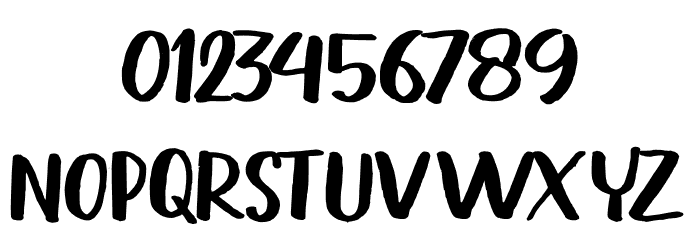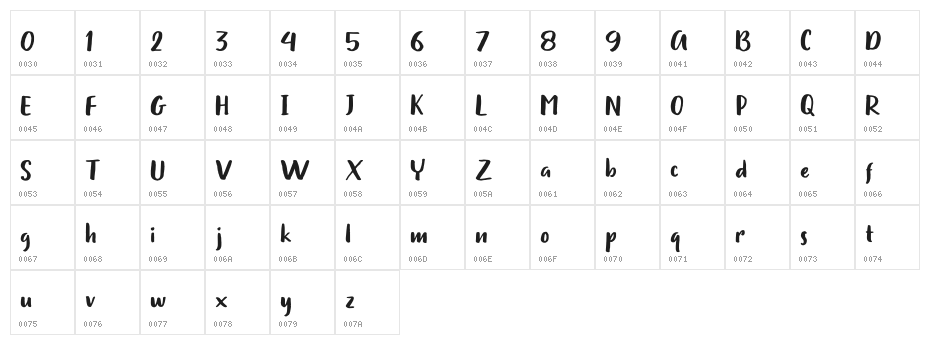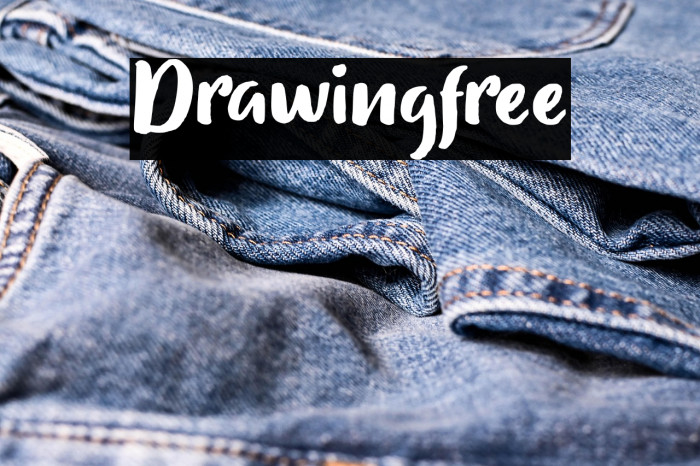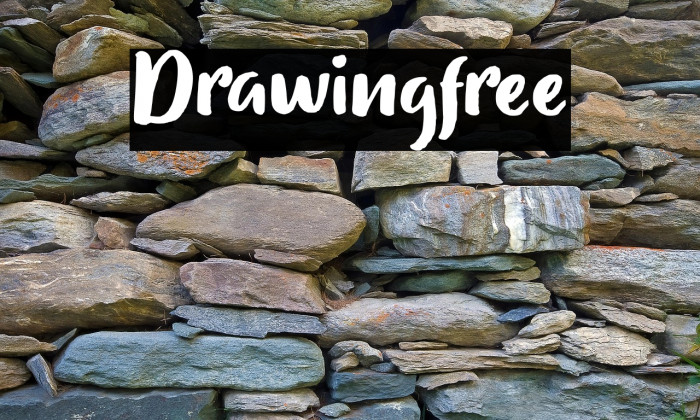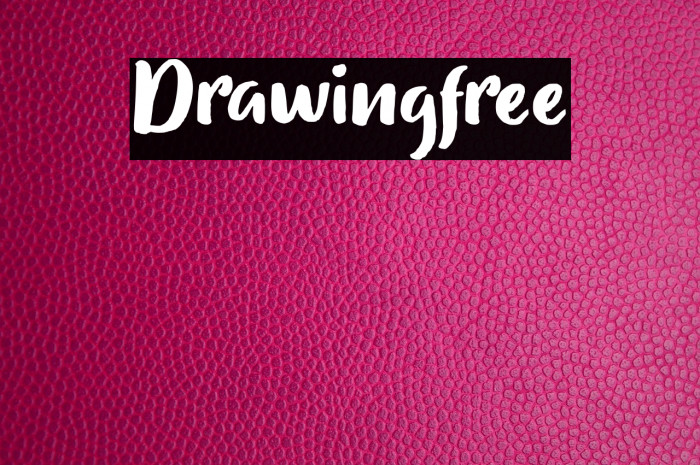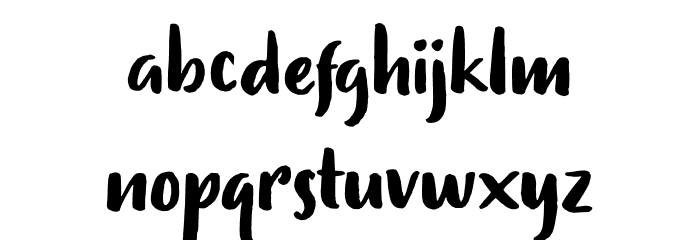
Drawingfree Font
Drawingfree Description
This font features a bold and expressive handwritten style, characterized by its fluid and dynamic strokes. The letters are slightly slanted, giving a casual and informal appearance. The uppercase and lowercase letters maintain a consistent style, with rounded edges and varying stroke widths that add to the font's lively and energetic feel. The numbers and special characters are designed to match the overall aesthetic, ensuring a cohesive look across all elements. This font is perfect for projects that require a personal touch or a creative flair.
| Overall Style | Casual, Creative |
| Proposed Projects | Ideal for greeting cards, invitations, posters, and branding projects that require a personal and creative touch. |